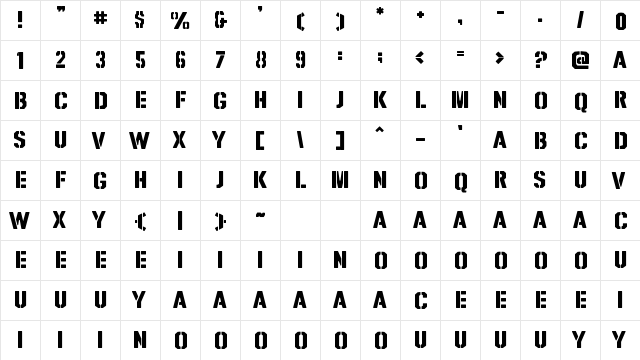
SGT Jhon O Regular Font Preview
SGT Jhon O Regular
SGT Jhon O Regular Font Details
| Foundry | TKK Studio |
| Designer | Sahirul |
Design Context for SGT Jhon O Typeface
SGT Jhon O takes a measured approach to typography — its balanced proportions and neutral character make it a reliable workhorse for both digital and print work.
Pro Tip: Pair SGT Jhon O with a font of contrasting weight or personality to build a more expressive typographic hierarchy.